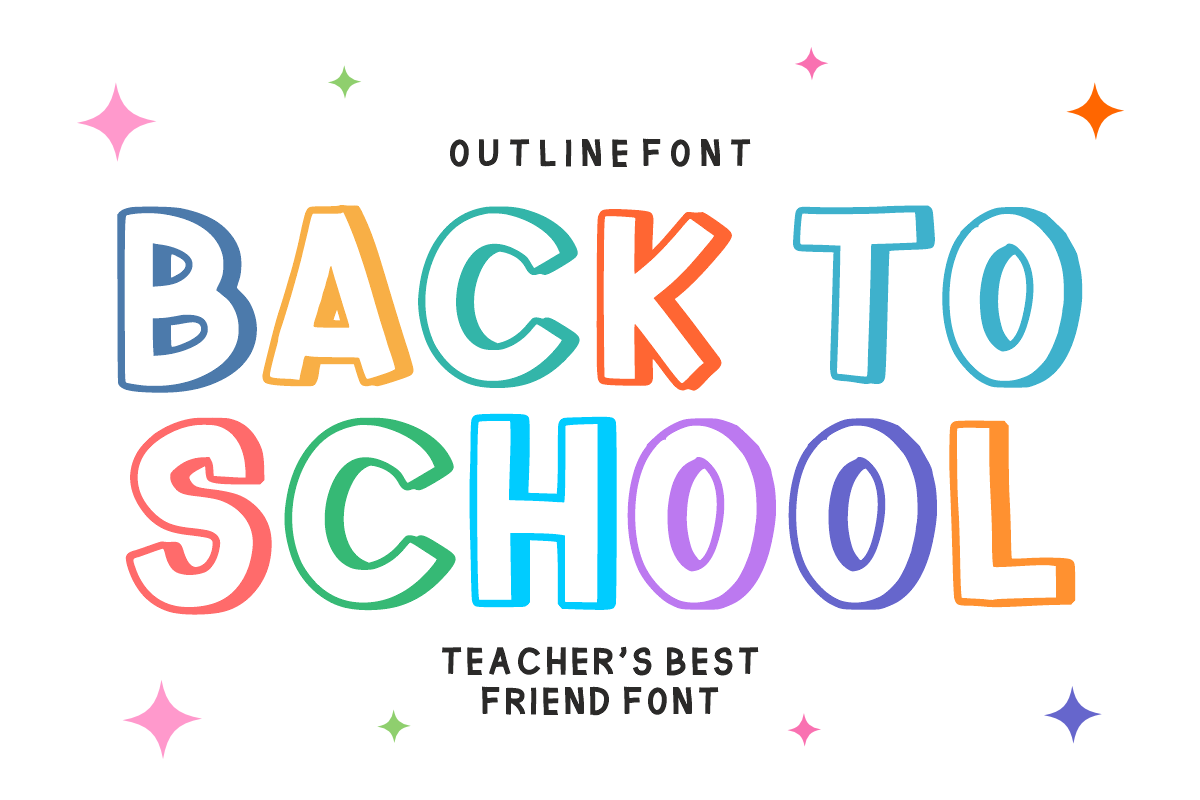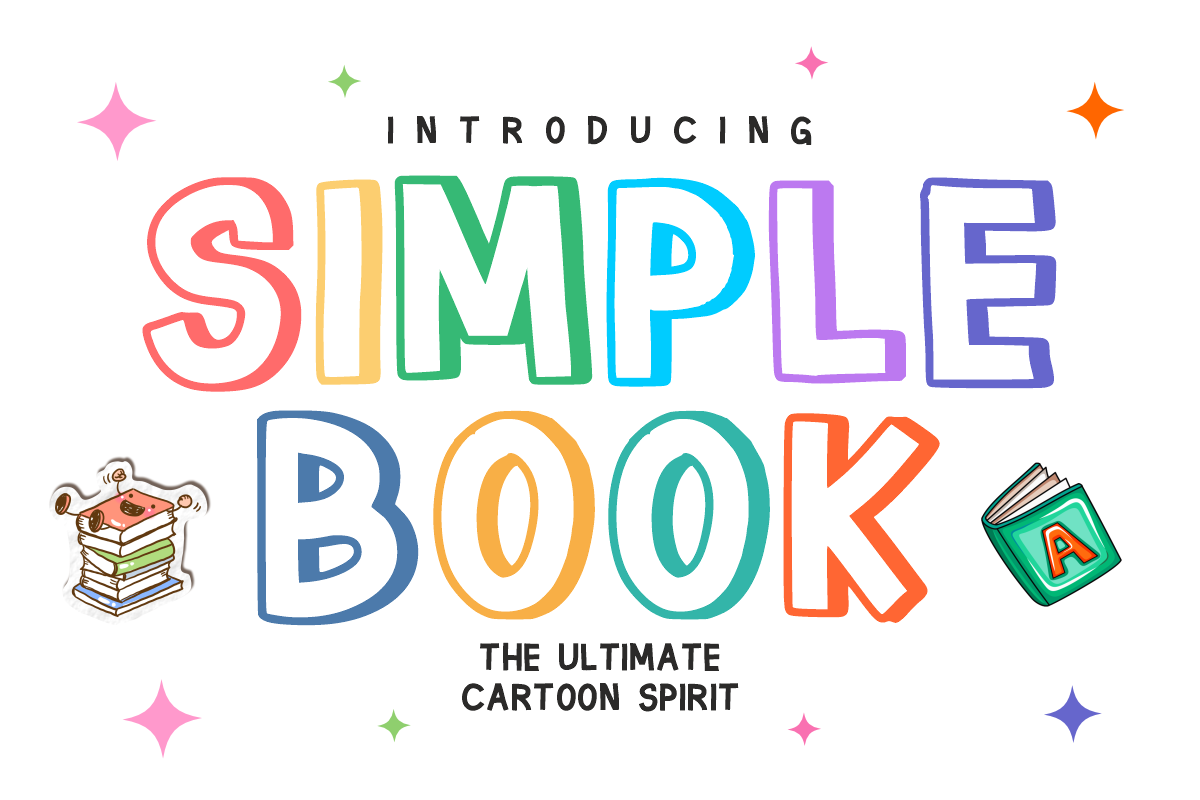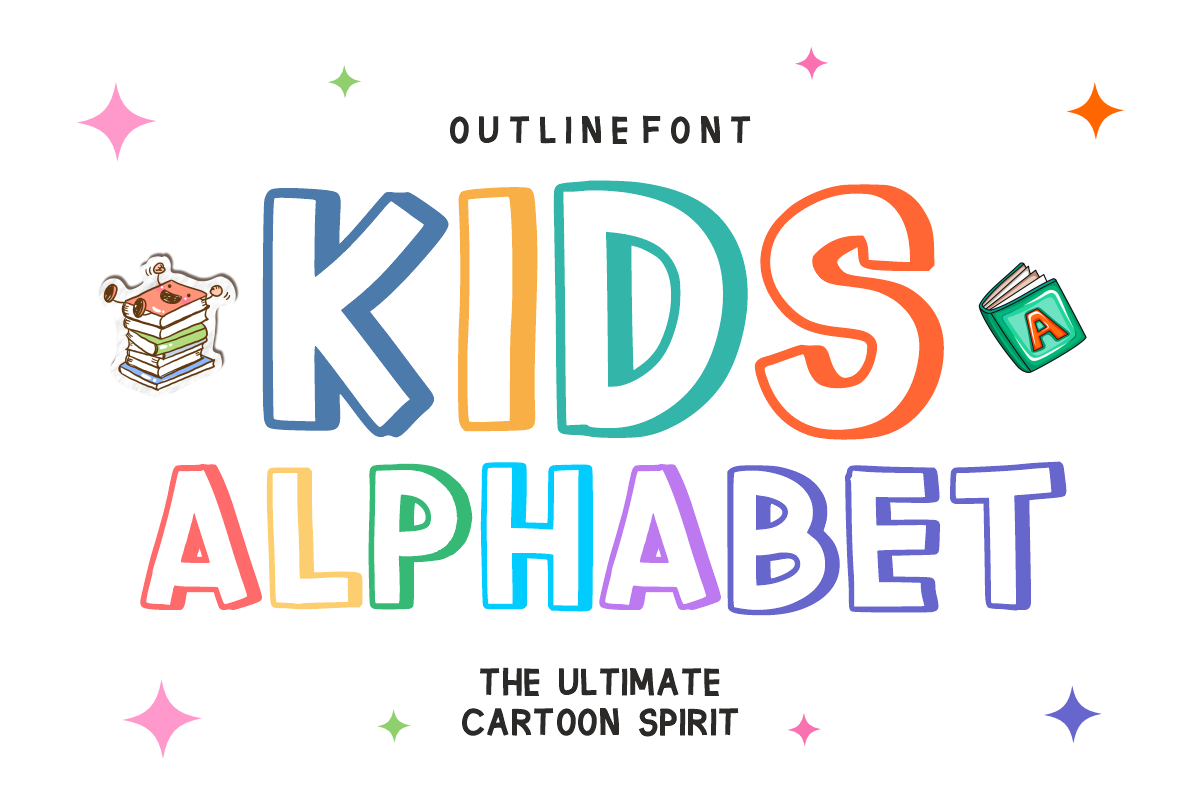
Simple Book - Playful Display Font
Simple Book - Playful Cartoon Display Font
Embrace "the ultimate cartoon spirit" and bring instant joy to your layouts with Simple Book! This delightful, chunky display font features a friendly, hand-drawn look with soft, blocky letterforms that are engineered to make your titles pop while maintaining absolute readability.
Perfect for youth branding, children's publishing, and casual design projects, Simple Book effortlessly balances an organic, whimsical aesthetic with clean vector precision. It’s an essential, versatile tool for creators wanting to inject lighthearted charm and high visual impact into their commercial workflows.
All-Caps Character Set (Chunky, playful uppercase letters with a cartoon feel)
Numbers & Basic Punctuation (Essential, simple symbols included)
Children’s Book Covers & Playful Editorial Layouts 📚
School Projects, Daycare Identity, & Educational Materials 🎒
Kids' Product Packaging, Toy Labels, & Nursery Decor 🧸
Social Media Marketing & Engaging Video Content 📱
Cricut, Silhouette, & DIY Craft Sublimation Projects ✂️